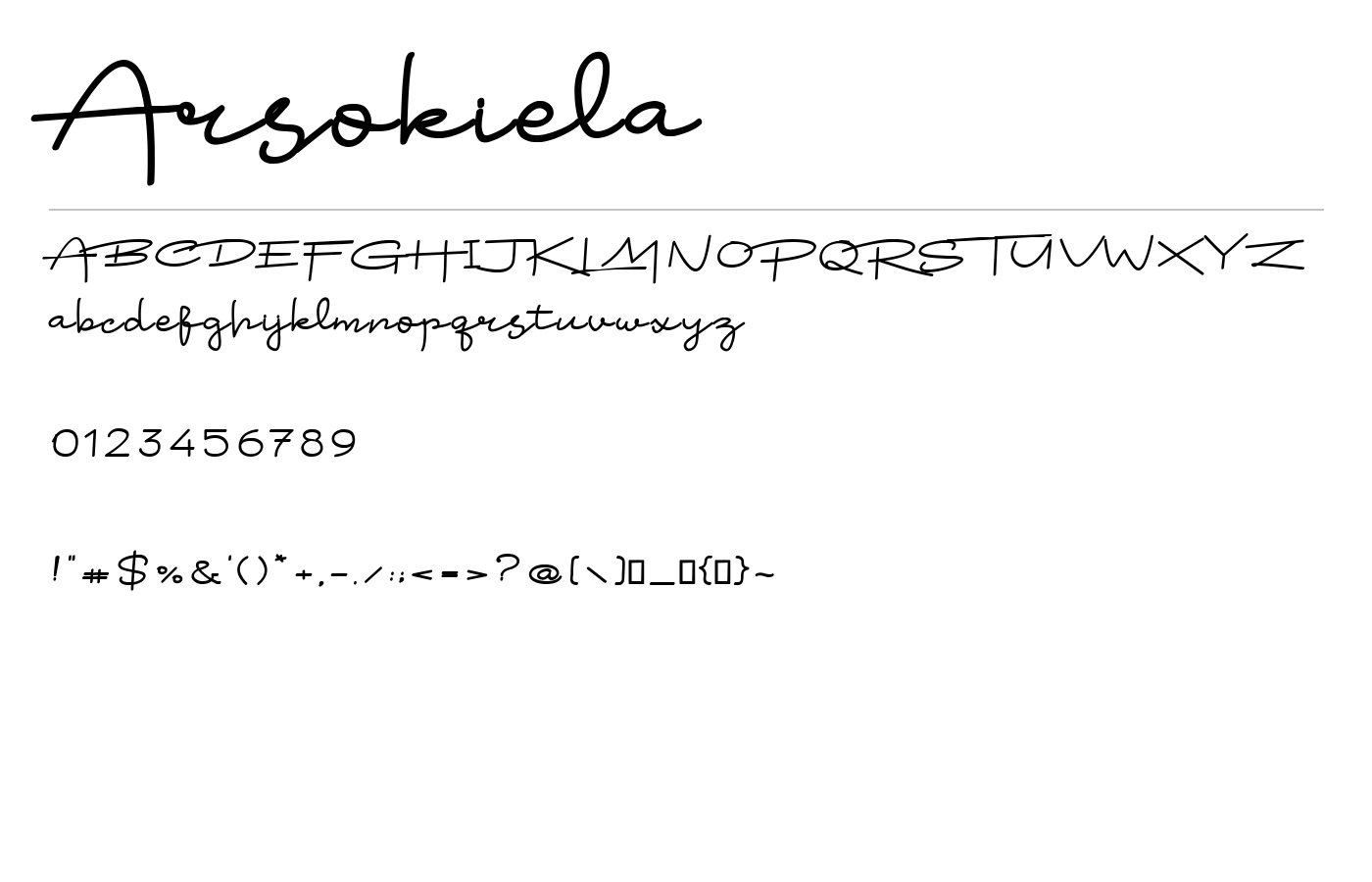
Arsokiela is a thin, handwritten script font with a casual and elegant feel, featuring smooth, flowing strokes and a slightly whimsical style. Its light weight and airy spacing make it perfect for personal branding, invitations, or creative projects that seek a friendly yet refined look. This font works well in headlines, logos, and decorative text where a natural, hand-crafted aesthetic is desired.
Arsokiela Font
About Arsokiela Font
| Font family | Arsokiela Font |
| Designer | tutus0929 |